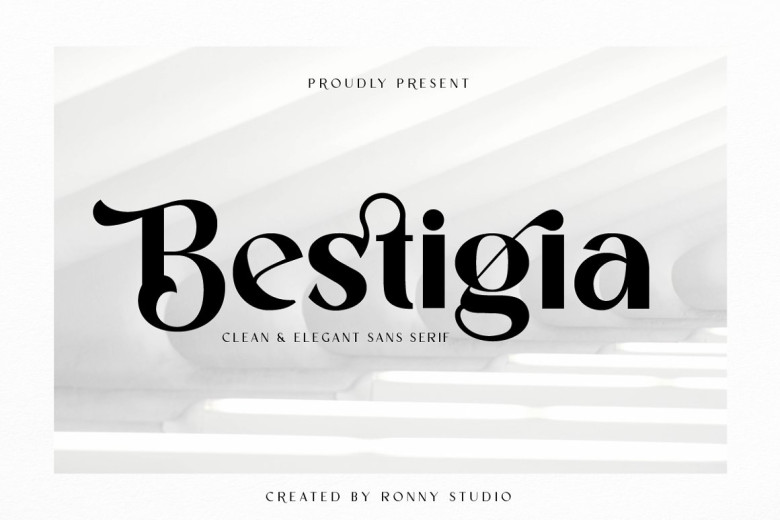
Bestigia Font
Bestigia is an elegant and chic Sans Serif font. It – This font is impressive and shares some of the stylish spirit of the script at first glance, one that is often difficult to put into words but definitely gives a uniform impression and shape which really speaks for good design. Add this font with confidence to your projects and you and your clients will see the results that come.
This typeface is perfect for elegant logos, branding, travel promotions, layout magazines, beauty products, product packaging, quotes, or simply as a stylish text overlay onto any background image.
Bestigia Sans Serif Font